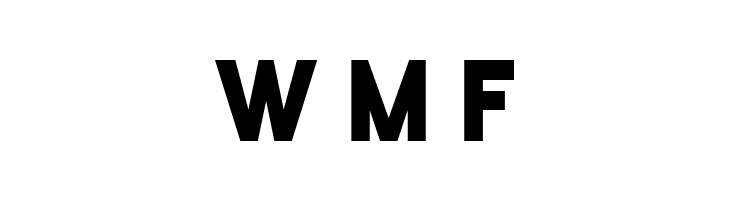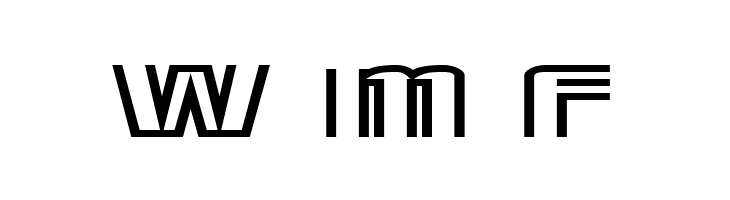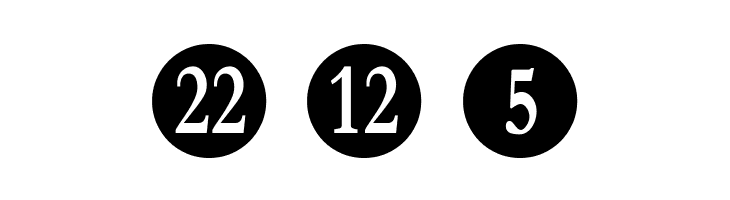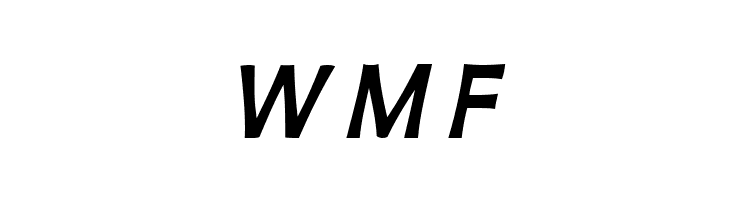
A bold, italicized font with dynamic, slanted characters and a sense of motion.
A bold, geometric font with a vintage poster style.
A bold, geometric font with a futuristic double-line style.
Bold, serif numerals enclosed in black circles for high visibility.
Bold, rounded numbers enclosed in circles for a playful and organized look.
A modern, geometric sans-serif font with clean lines and a friendly appearance.
A modern sans-serif font with geometric shapes and uniform strokes.
A modern, light, and italic sans-serif font with medium contrast and normal spacing.